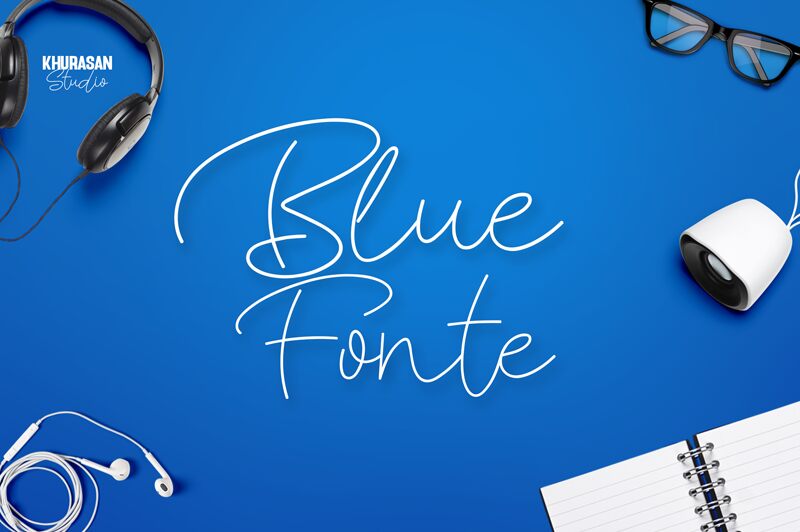
Blue Fonte font family by Khurasan includes two handwritten font styles free for personal use. Its characters are fluid and expressive to display modern and airy visual impressions. The Blue Fonte family is an artistic, smooth, and stylish script combining elegance with definition and readability. Its dynamic feel makes it suitable for a wide range of uses especially when it comes to typography in various design projects.
Among the latter, you can use Blue Fonte in posters, packaging designs, branding projects, magazines, and newspapers. Within a smaller context, Blue Fonte, when used as a free font, can be used for a company’s advertising slogan. In the fashion field, Blue Fonte can be part of a logo appearance or design for clothing items. Platforms such as websites and mobile applications can use Blue Fonte as a font type for small content texts such as a CTA.